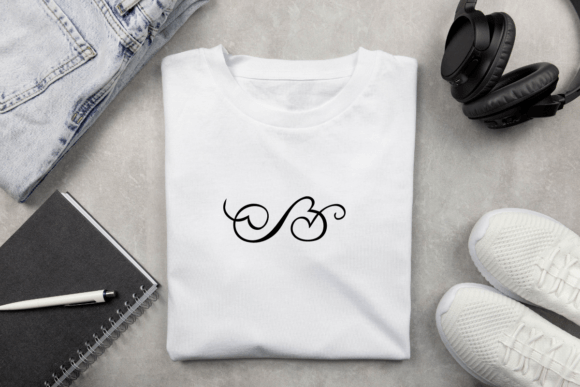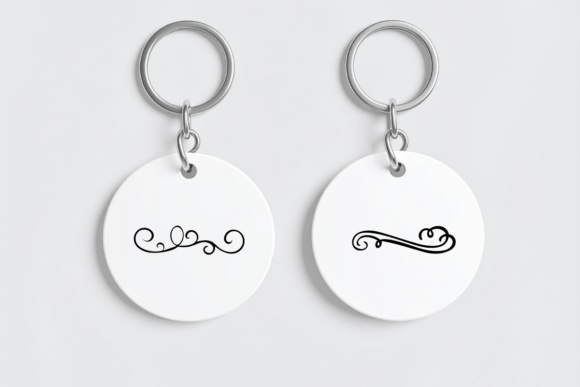
Unlock the Whimsy of Your Designs with Elegant Swirl Dividers Font
Have you ever stared at a blank page, trying to find the perfect spark to ignite your creativity? For designers, those moments can be the most thrilling – and frustrating. But what if you had the perfect tool to add a dash of magic to your projects? Introducing Elegant Swirl Dividers Font, a delightful dingbats font that’s sure to bring a smile to your face.
This charming font is more than just a pretty face – it’s a versatile design element that can elevate your creative projects from ordinary to extraordinary. Whether you’re working on a children’s book, a wedding invitation, or a social media graphic, Elegant Swirl Dividers Font is the perfect addition to add a touch of whimsy and personality.
Elegant Swirl Dividers Font Key Features
- Unique Swirling Design: The Elegant Swirl Dividers Font features a beautiful, swirling design that adds an elegant touch to any text, making it perfect for decorative purposes.
- Customizable: The font allows for customization of the swirling pattern, enabling users to create unique and personalized designs.
- High-Quality Graphics: The font is designed with high-quality graphics, ensuring a crisp and clear display on various devices, from small screens to large prints.
Elegant Swirl Dividers Font Review
I recently had the chance to work with the Elegant Swirl Dividers font, and I must say it’s a unique addition to any design project. ✨ Here are some of the things that worked well for me:
- Its swirly, cursive design adds a touch of elegance to any layout.
- It’s highly customizable, allowing you to adjust the color, size, and spacing to fit your design needs.
- It’s a great option for creating dividers, headings, or even quotes in your design.
However, like any font, it’s not perfect. ✨ Here are some limitations I encountered:
- It can be a bit hard to read in smaller sizes, especially for those with vision impairments.
- It’s not ideal for body text, as it can be quite decorative and may not provide enough contrast with the surrounding text.
- The swirly design can sometimes make it difficult to center or align the text.
Overall, I think the Elegant Swirl Dividers font is a great addition to any design project that requires a touch of elegance and whimsy. While it may have some limitations, its unique design and high customizability make it a versatile choice for designers.
Elegant Swirl Dividers Font: A Practical Application Guide
The Elegant Swirl Dividers Font is perfect for creating elegant and sophisticated designs, such as:
Business presentations and reports
Magazine and newspaper layouts
Website and blog designs